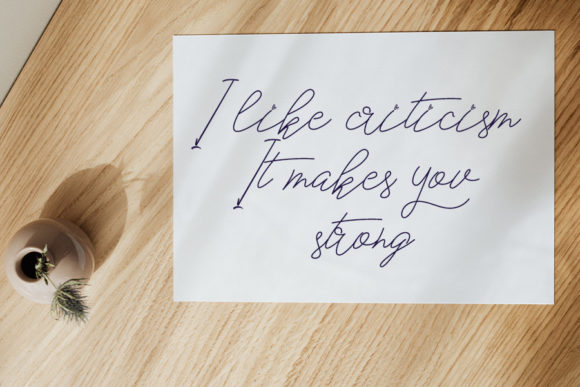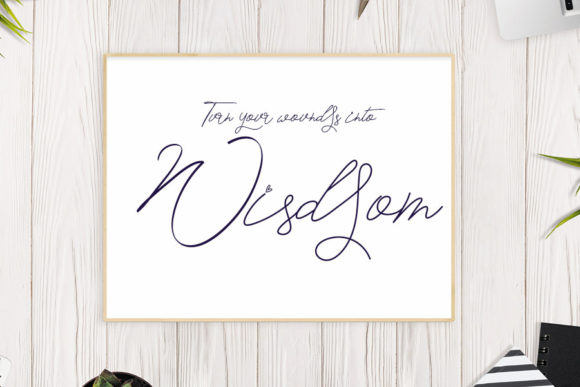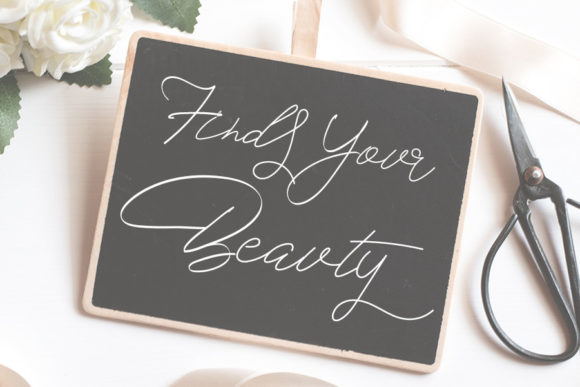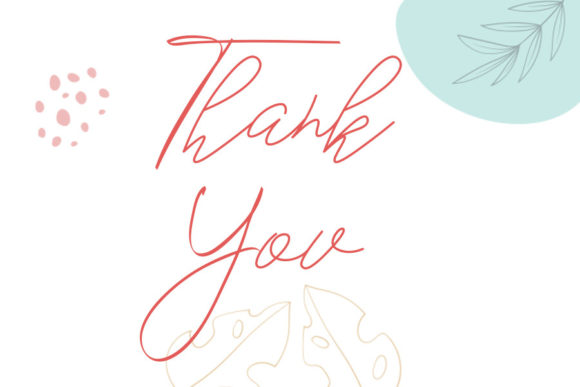
Baby Summer Font: Elevate Your Designs with this Charming Script Font
Baby Summer is a terrific script font that has been making waves in the design community. This font is neatly crafted and highly detailed, making it a wonderful complement to your font library. Whether you’re working on a creative project, designing a logo, or crafting a beautiful stationery set, Baby Summer has the potential to enhance any creation!
What makes Baby Summer Font so special?
Baby Summer Font is a beautifully designed script font that exudes elegance and sophistication. Its intricate details and flowing curves make it perfect for a variety of design applications, from romantic wedding invitations to stylish branding materials. The font’s unique charm lies in its ability to add a touch of whimsy and playfulness to any design, making it a versatile choice for designers and crafters alike.
Key Features of Baby Summer Font
- Neatly Crafted: Baby Summer Font is meticulously designed to ensure that every letter and curve is perfect, making it a joy to work with.
- Highly Detailed: The font’s intricate details make it stand out from other script fonts, giving it a unique and distinctive look.
- Versatile: Baby Summer Font can be used for a wide range of design applications, from logos and branding materials to stationery and crafts.
- Elegant and Sophisticated: The font’s flowing curves and intricate details give it an air of elegance and sophistication, making it perfect for designs that require a touch of luxury.
How to Use Baby Summer Font in Your Designs
Baby Summer Font is incredibly easy to use and can be incorporated into your designs in a variety of ways. Here are a few ideas to get you started:
- Wedding Invitations: Use Baby Summer Font to create beautiful, romantic wedding invitations that set the tone for a stylish and elegant wedding.
- Branding Materials: Add a touch of sophistication to your branding materials, such as logos, business cards, and letterheads, with Baby Summer Font.
- Stationery: Create gorgeous stationery sets, including notebooks, journals, and greeting cards, using Baby Summer Font.
- Crafts: Use Baby Summer Font to add a personal touch to your crafts, such as scrapbooking, card making, and DIY projects.
Why Designers and Crafters Love Baby Summer Font
Baby Summer Font has quickly become a favorite among designers and crafters due to its unique combination of elegance and playfulness. Here are a few reasons why:
- Unique and Distinctive: Baby Summer Font stands out from other script fonts due to its intricate details and flowing curves, making it a great choice for designers looking to create something truly unique.
- Easy to Read: Despite its intricate details, Baby Summer Font is surprisingly easy to read, making it perfect for designs that require a touch of elegance and sophistication.
- Versatile: Baby Summer Font can be used for a wide range of design applications, making it a great addition to any font library.
In conclusion, Baby Summer Font is a terrific script font that is sure to elevate your designs and add a touch of elegance and sophistication. Its intricate details, flowing curves, and versatility make it a wonderful complement to your font library. Whether you’re a designer, crafter, or simply someone who loves beautiful typography, Baby Summer Font is definitely worth checking out.